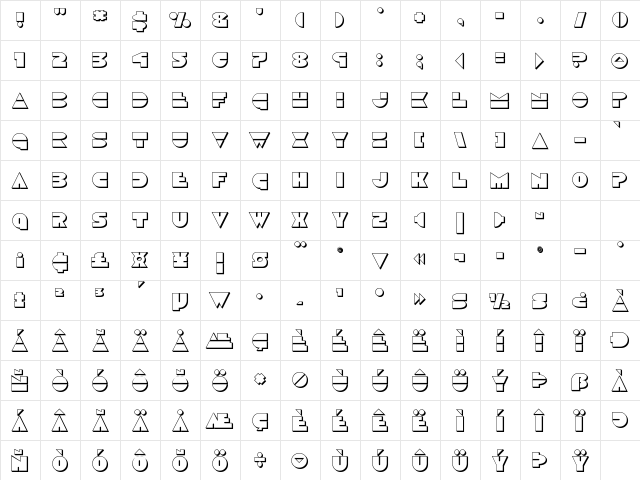
Disco Duck 3D Regular
Design Context for Disco Duck 3D
Disco Duck 3D is a composed and adaptable typeface that performs quietly and consistently across a wide range of design contexts.